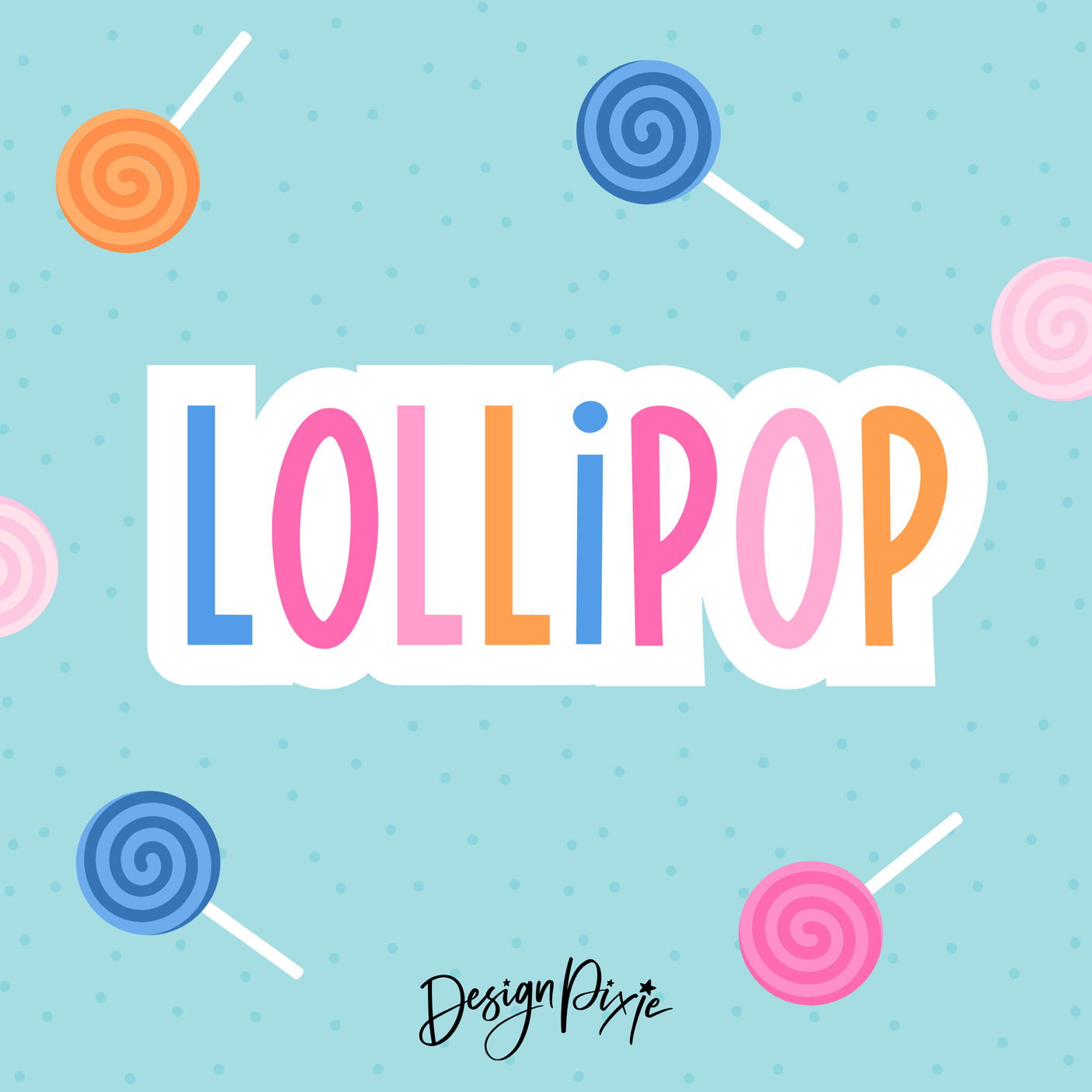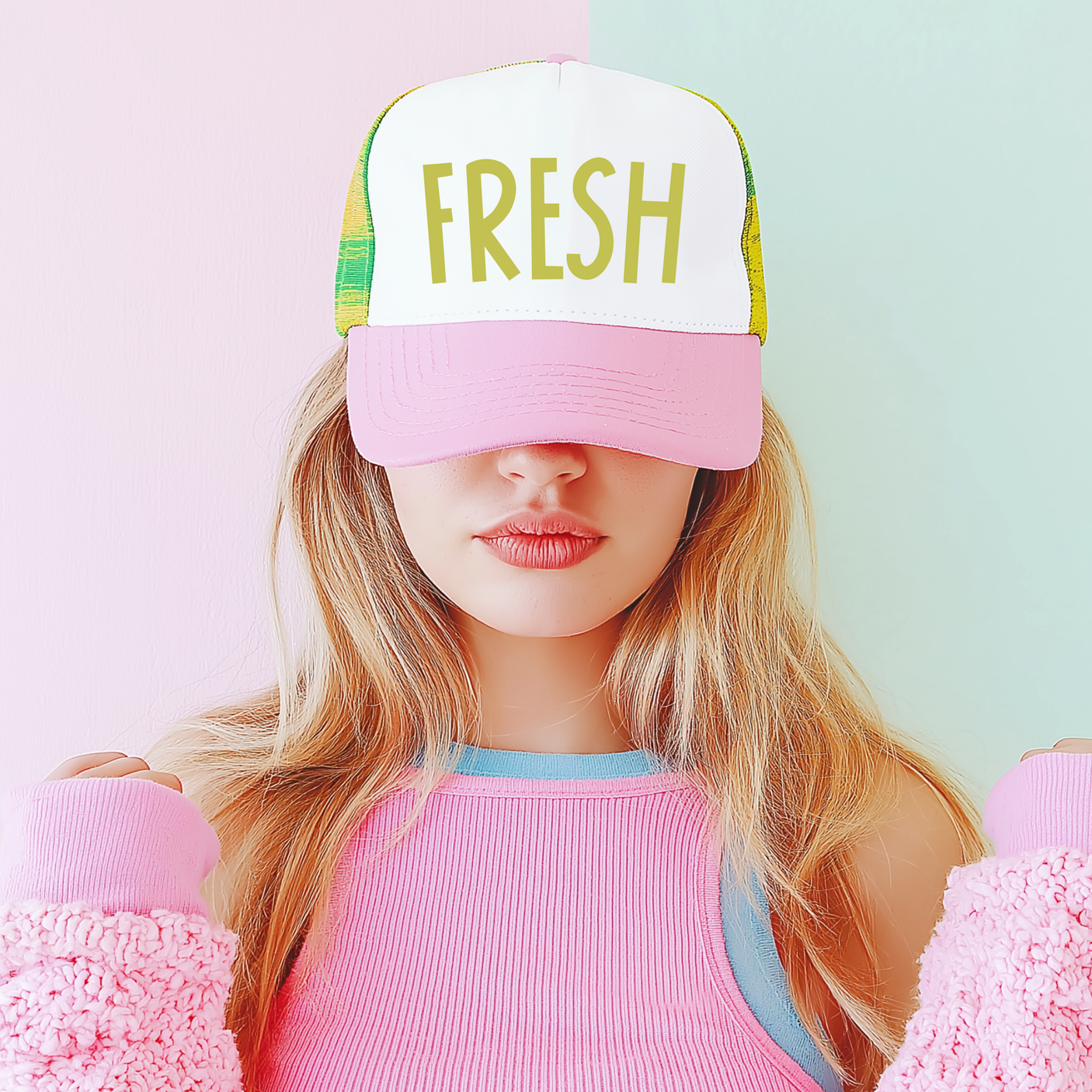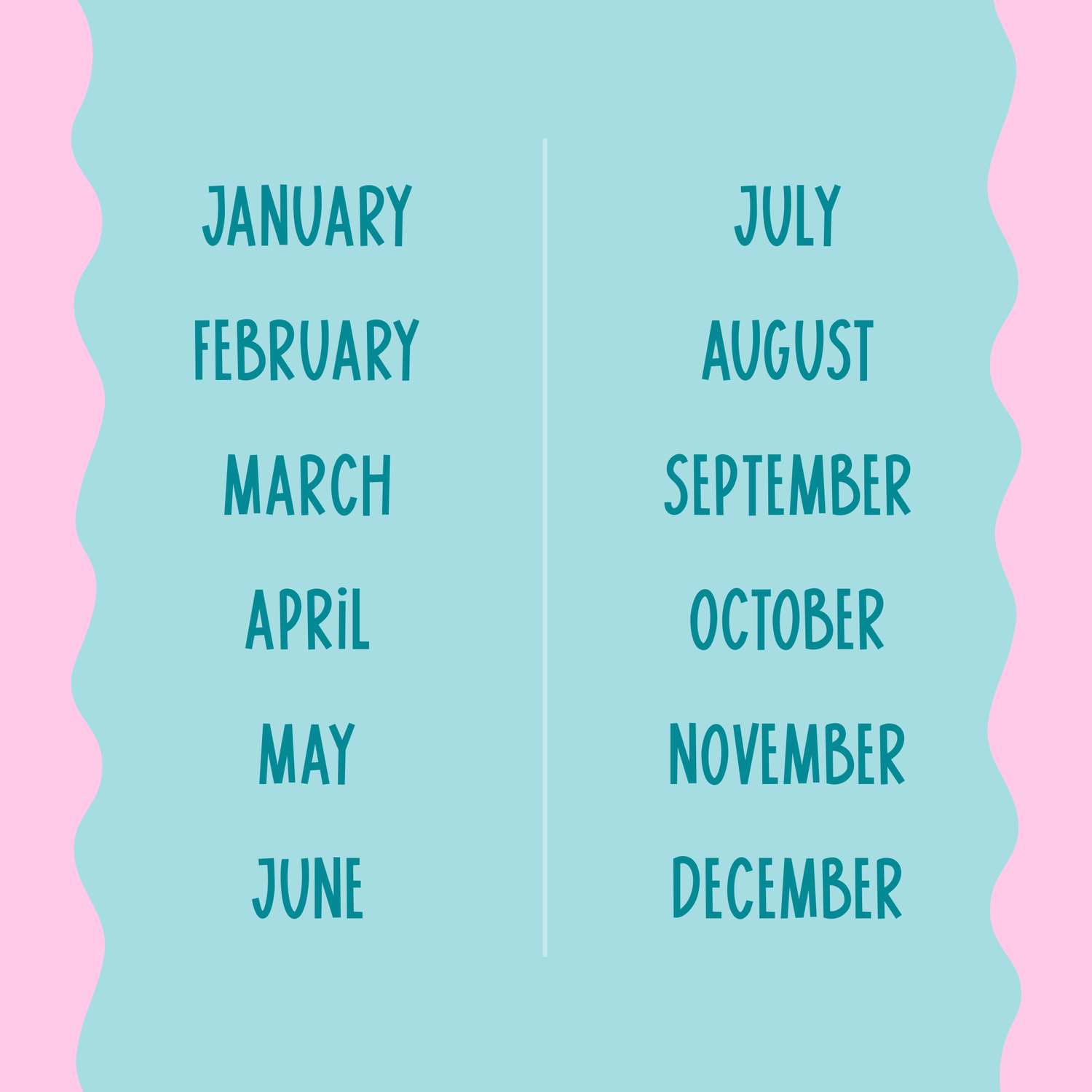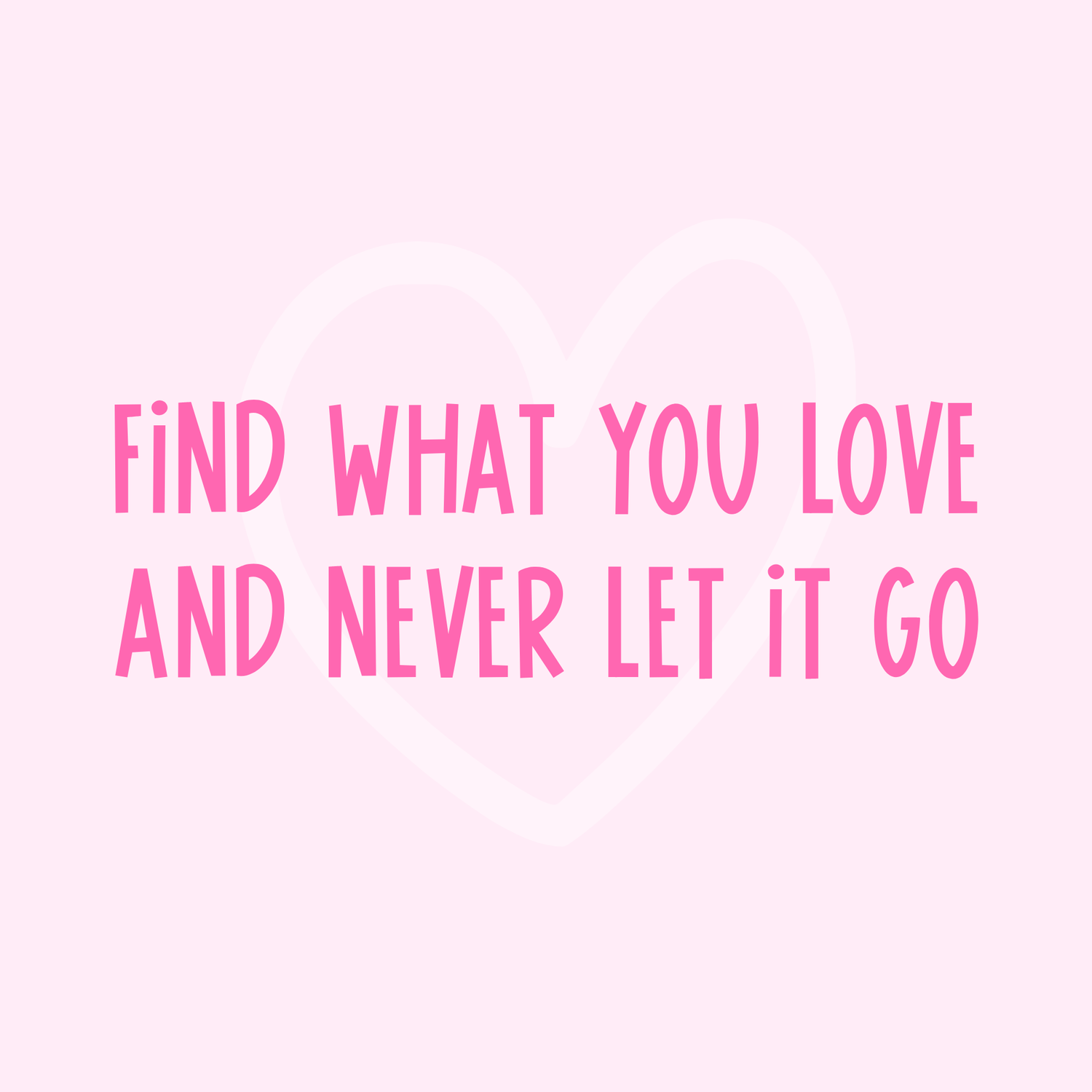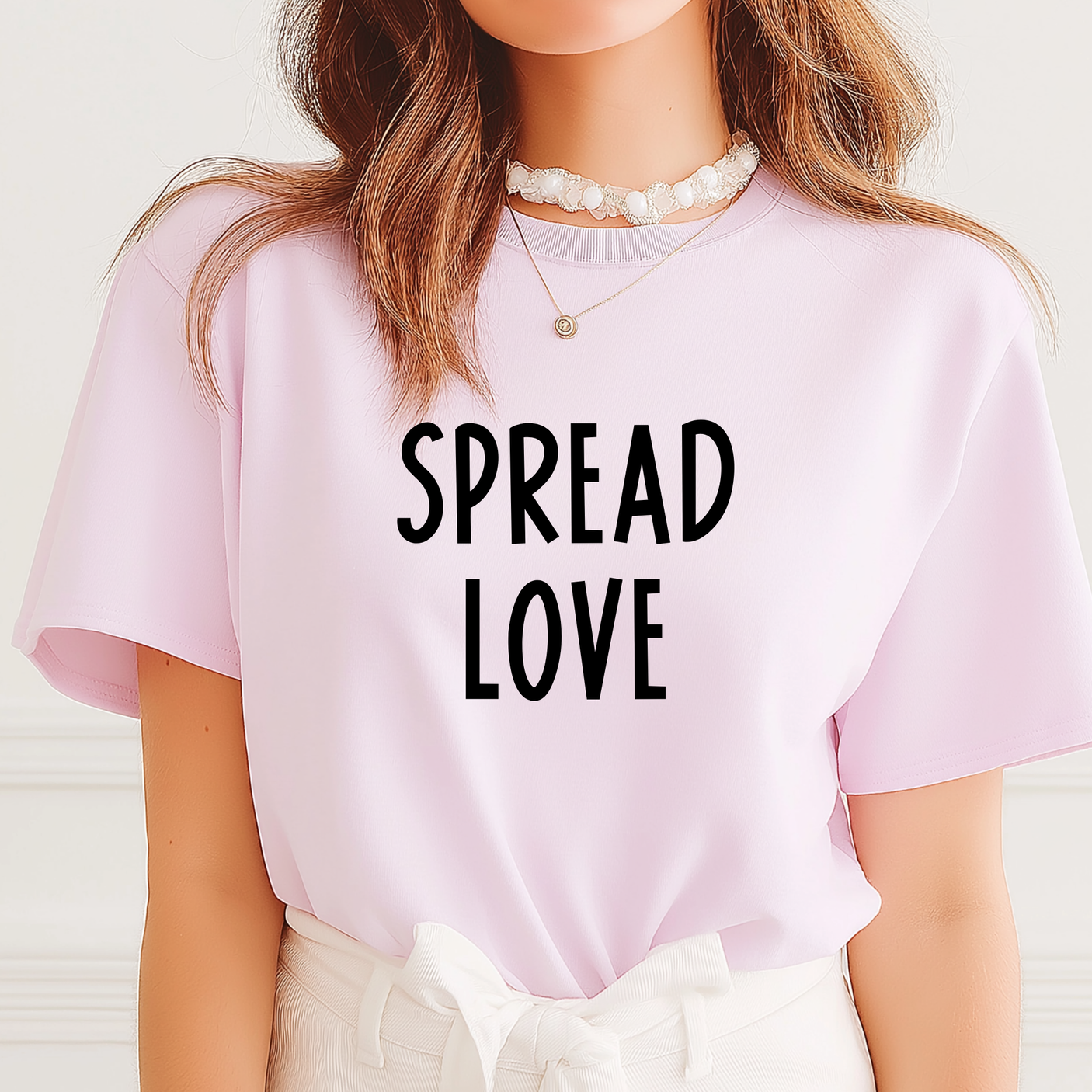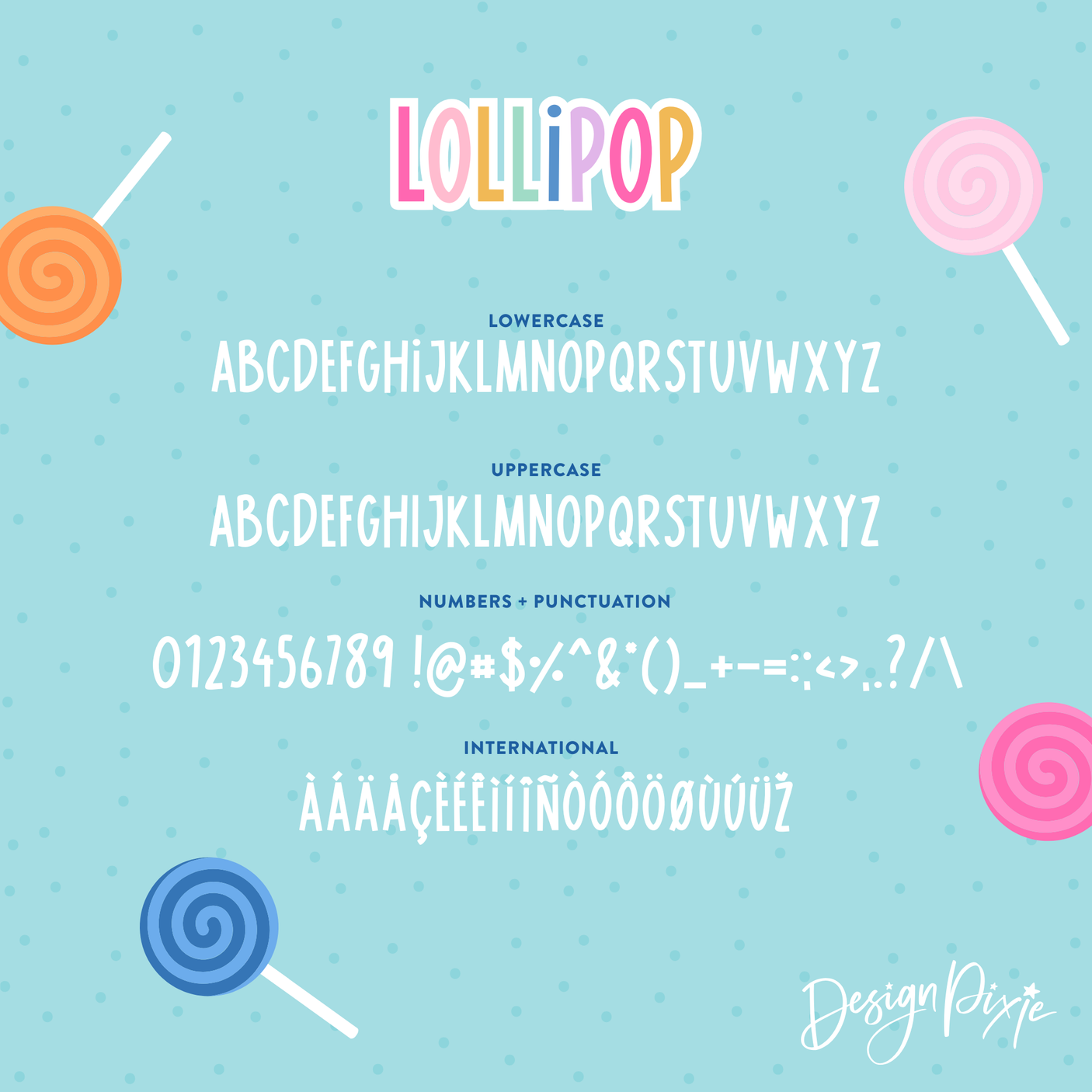
Lollipop Font
Say hello to Lollipop, your new bold all caps lettering font that brings instant impact to anything you create. With chunky letterforms and clean curves, Lollipop is perfect for eye catching quotes, product labels, stickers, logos, shirts, packaging and fun statement designs.
It’s strong, modern, and super easy to read, making it ideal for creators who want their words to stand out loud and proud. Whether you’re crafting digital products, designing apparel, or creating bright, bold branding for your small business, Lollipop delivers that confident pop of personality every time.